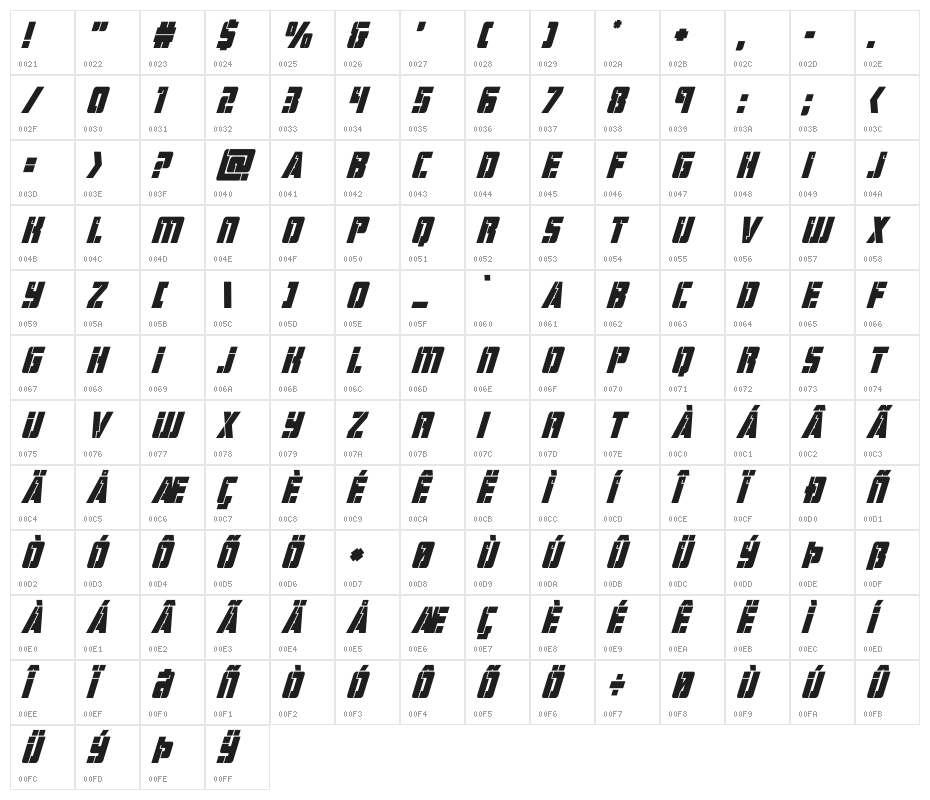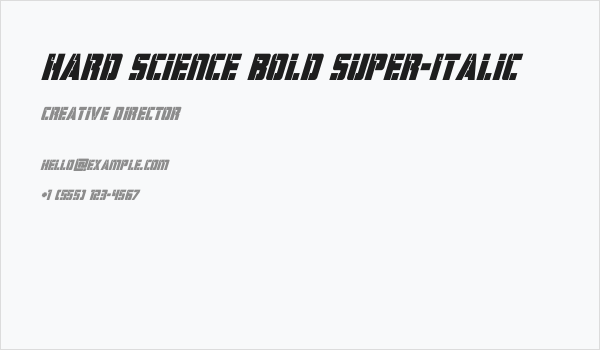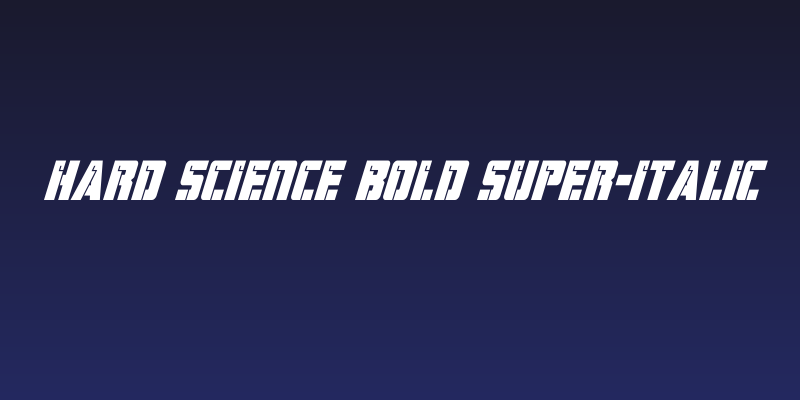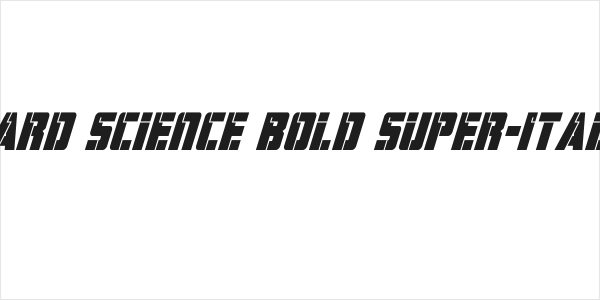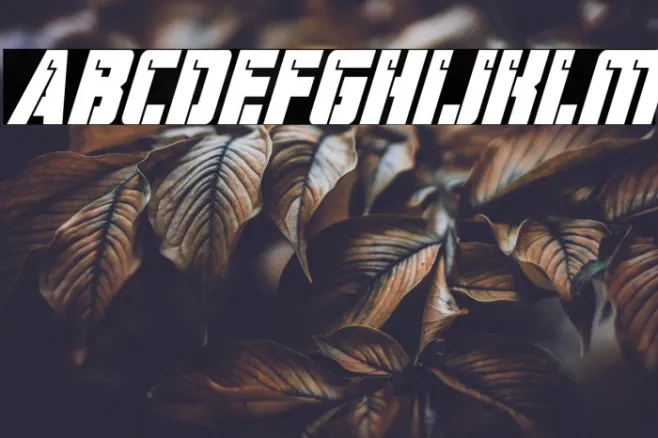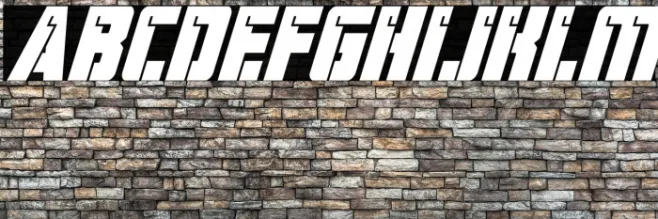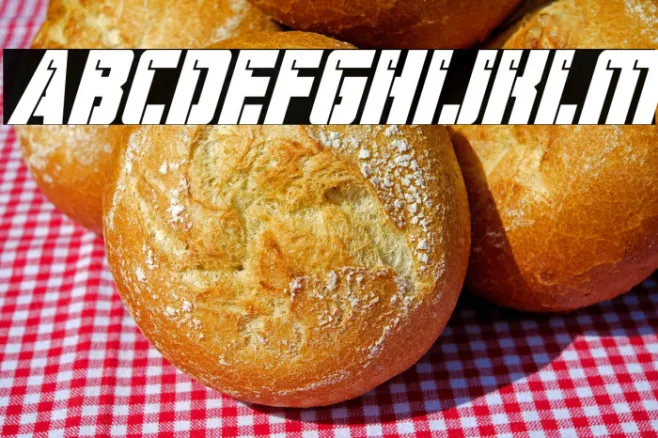
Hard Science Bold Super-Italic Font
Hard Science Bold Super-Italic Description
This font exhibits a bold and dynamic style with a strong italic slant, giving it a sense of motion and energy. The characters are sharply angular, with a futuristic and industrial feel. The strokes are thick and consistent, providing a robust and impactful appearance. The uppercase and lowercase letters maintain a cohesive design, while the numerals and special characters complement the overall aesthetic. This font's aggressive and modern look makes it suitable for attention-grabbing designs.
| Proposed Projects | Ideal for sci-fi themed posters, video game titles, sports branding, and dynamic advertising campaigns. |